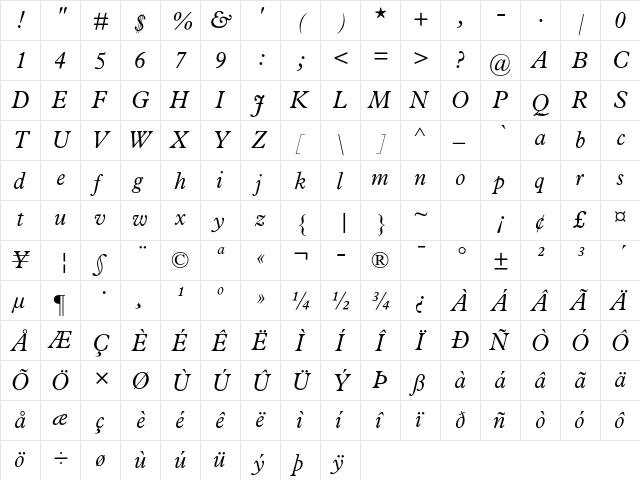
News Plantin MT Std Italic
Design Context for News Plantin MT Std Typeface
News Plantin MT Std takes a measured approach to typography — its balanced proportions and neutral character make it a reliable workhorse for both digital and print work. The dynamic lean of this cut emphasises speed and emphasis in any layout.
Pro Tip: Try News Plantin MT Std for annotation and caption copy alongside an upright companion — the contrast in angle creates a dynamic but ordered typographic system.